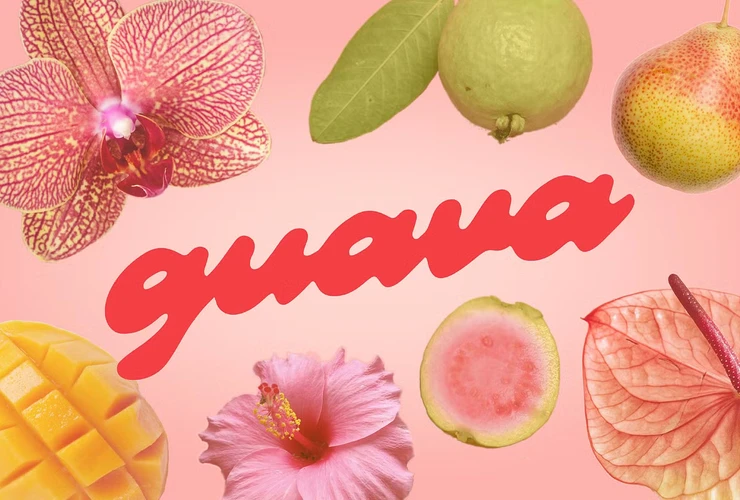
Relive the Essence of Mexico City with Guava – Juicy Script
Guava – Juicy Script, crafted by Meg Burk, captures the vibrant and unforgettable flavors of Mexico City. Inspired by the trip in 2023, this typeface brings the essence of guava to life, embodying its beauty through every curve and swoop.
Key Features of Guava – Juicy Script
Contextual Alternates: This OpenType font features contextual alternates, allowing for a gentle swooping curve between every letter, adding a dynamic and natural flow to your text.
Future Updates: Support for Spanish characters is on the horizon, making this font even more versatile for multilingual projects.
Ideal Uses for Guava – Juicy Script
Guava – Juicy Script is perfect for a range of design applications, offering a unique and playful touch to your projects:
Branding: Add a distinctive and memorable flair to your brand identity.
Packaging: Create eye-catching packaging designs that stand out on the shelves.
Social Media: Enhance your social media graphics with a lively and engaging script font.
Invitations: Design unique and personal invitations for events and celebrations.
A Typeface Inspired by Experience
Created between January and June 2024, Guava – Juicy Script is more than just a font; it’s a visual representation of a journey. The typeface encapsulates the essence of an unforgettable trip, bringing the vibrant and dynamic spirit of Mexico City into your designs.